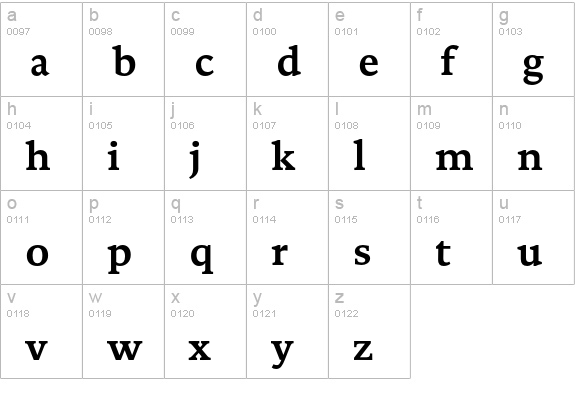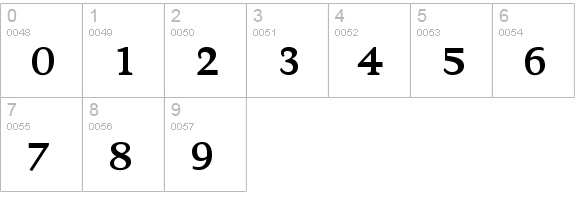
Documenta Dtl Bold is a strong, high-contrast variant in the Documenta typeface family \xE2\x80\x94 well suited to headlines, attention-grabbing titles, and strong calls-to-action.
Documenta Dtl Bold is a bold and eye-catching font that exudes confidence and modernity. Its strong and clear lines make it perfect for headlines, titles, and any design that requires a bold statement. This versatile font is suitable for both digital and print projects, adding a touch of sophistication and elegance. Documenta Dtl Bold is free to download at FontsMarket.com, making it accessible to all designers and creatives looking to elevate their work with a powerful and impactful typeface. Don't miss out on this opportunity to enhance your design projects with the striking Documenta Dtl Bold font!